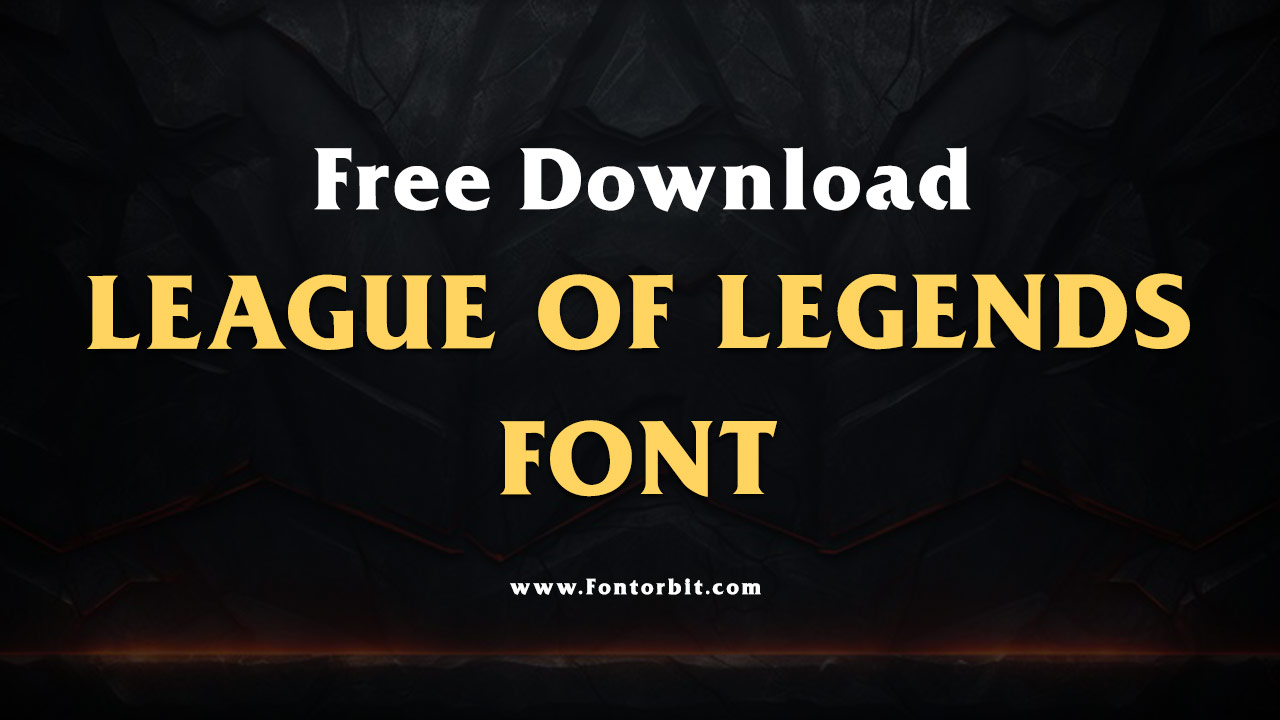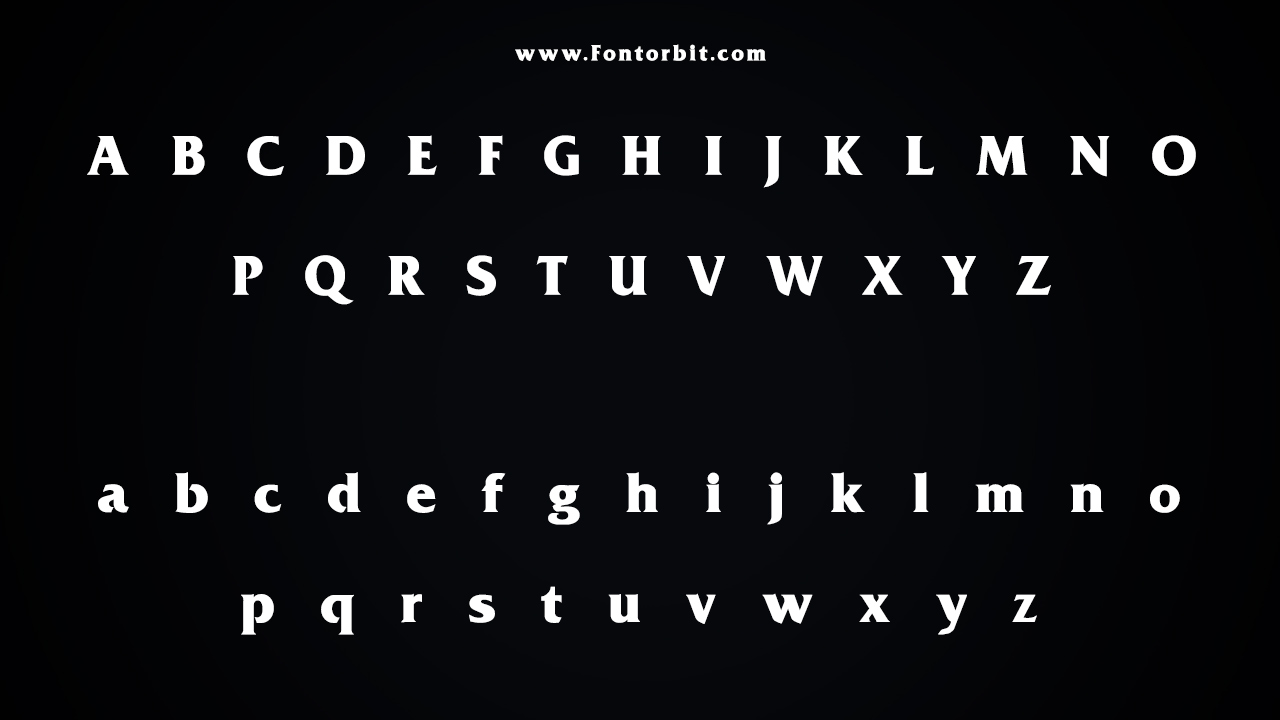
The League of Legends Font, designed to emulate the unique aesthetic of the iconic game, captures the essence of the popular multiplayer online battle arena (MOBA) video game.
This distinctive typeface reflects the game’s dynamic and engaging spirit, making it an excellent choice for fans and designers looking to bring a touch of the game’s iconic style to their projects.
The League Of Legends Font Family
League Font
- Gaming Merchandise
- Fan Art
- Event Posters
- Logo Design
- Game-Themed Projects
The League of Legends Font is ideal for projects that aim to capture the essence of the game. Its design is perfect for creating engaging fan art, eye-catching event posters, and branded merchandise, allowing you to infuse your projects with the excitement and style of League of Legends.
The League of Legends Font embodies the game’s distinctive style, making it a perfect choice for gaming-related designs and fan projects. Free for personal use, this font lets you bring a touch of the game’s dynamic energy to your designs, whether you’re working on logos, posters, or merchandise. It’s a great way to add a splash of the game’s iconic visual style to your creative work.
1.What Is The League Of Legends Font?
The League of Legends Font is a typeface inspired by the font used in the League of Legends logo, capturing the game’s dynamic and engaging style.
2.Who Designed The League Of Legends Font?
The font is based on the custom-designed typeface used in the League of Legends logo. A free version is available in ttf format.
3.What Are The Key Features Of The League Of Legends Font?
The font features a distinctive design that emulates the style of the game’s logo, making it ideal for gaming-related and fan projects.
4.How To Use League Of Legends Font In Branding?
You can use it to create game-themed logos, fan merchandise, event posters, and branding materials that capture the iconic style of League of Legends.
5.What Are The Alternatives To The League Of Legends Font?
Similar fonts include Friz Quadrata, Game Over, and Pixel Operator, which offer styles that resemble the game’s design aesthetics.